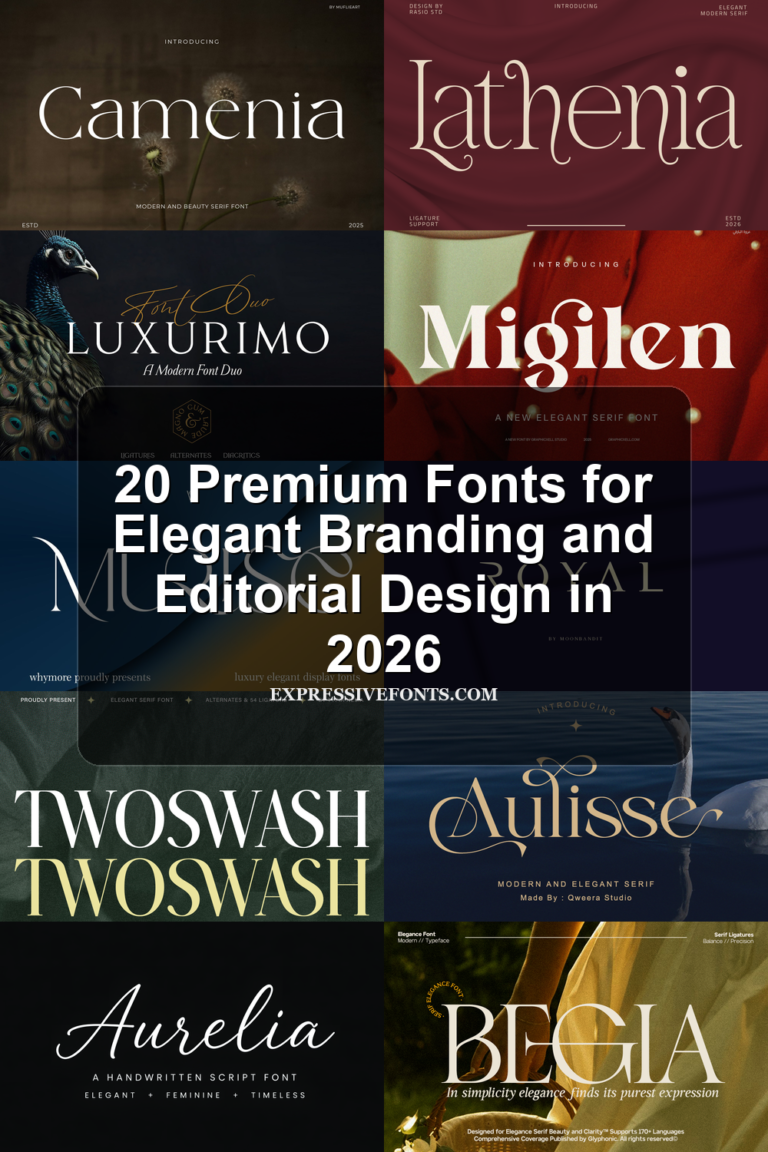
20 Best Premium Fonts for Elegant Branding and Editorial Design in 2026
Premium Fonts are a strong choice for projects that need refined typography, clear hierarchy, and a more polished visual tone. This collection brings together 20 elegant serif, signature script, duo, and minimal sans serif styles for branding, logos, packaging, editorial design, wedding stationery, and high-end creative work. Aurelia Font Best For: logos, premium designs, feminine…